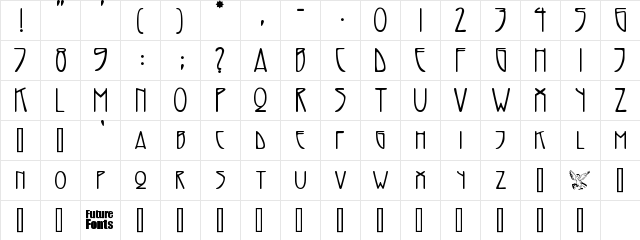
Alana Odd Regular
Design Context for Alana Odd Typeface
Alana Odd is a composed and adaptable typeface that performs quietly and consistently across a wide range of design contexts.